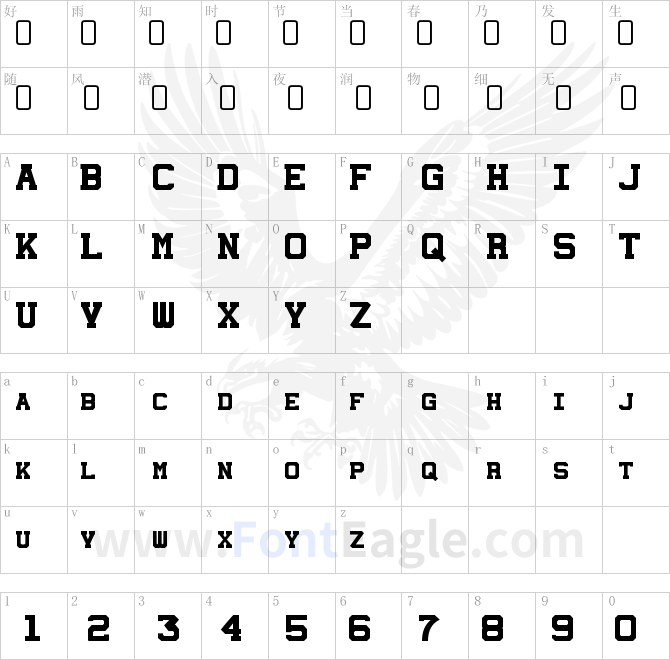
- Font name:Station 232
Station-232-Regular is a great font, widely used in graphic design, single-page menu design, poster design and other fields, and is deeply loved by designers.Station-232-Regular download.